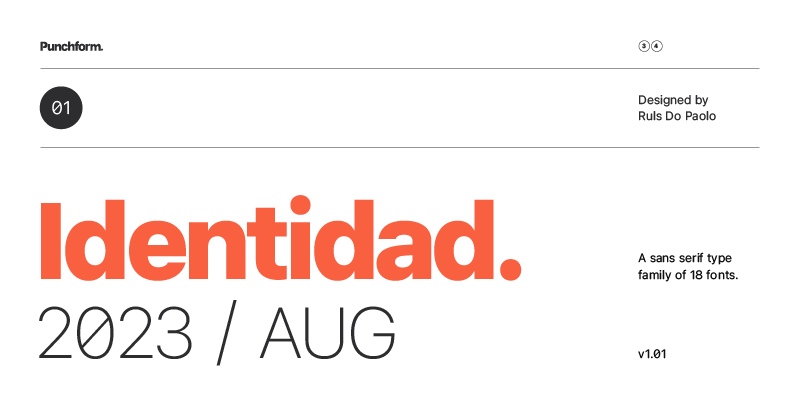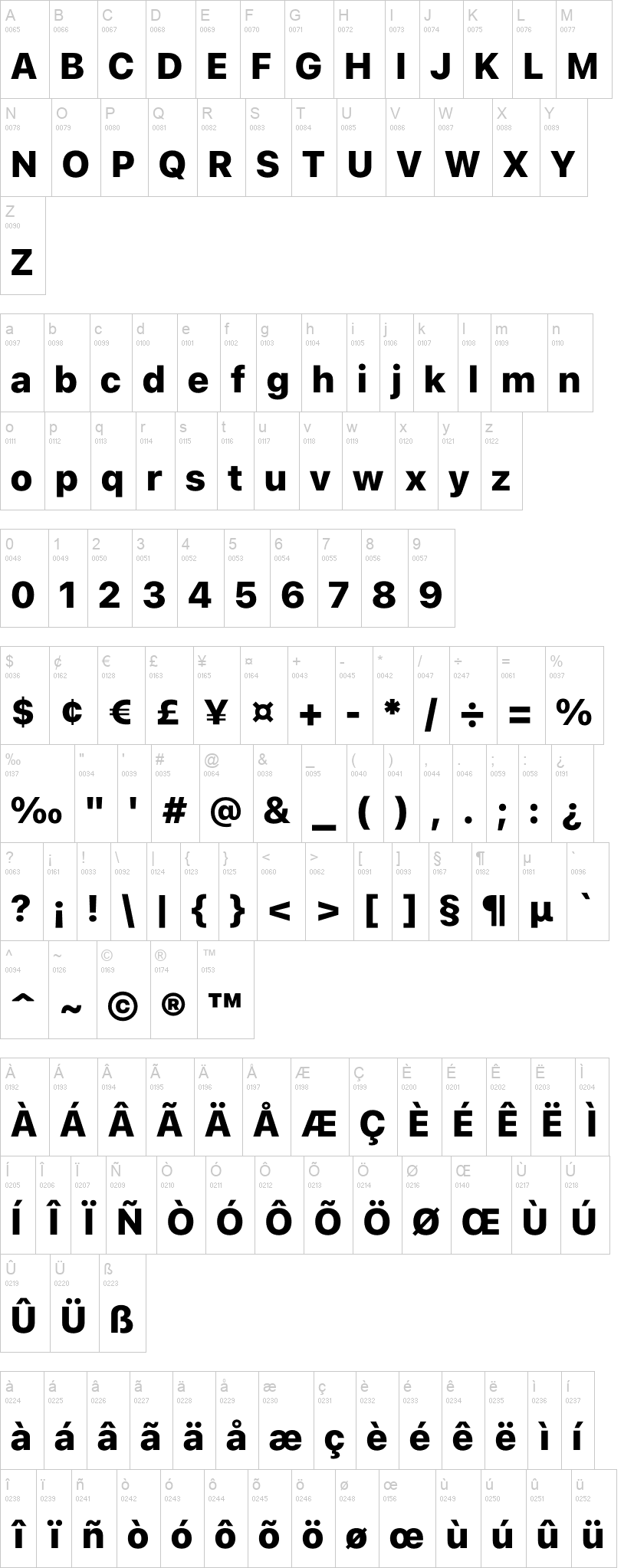
Identidad is a sans-serif type family designed to offer support for most languages in the Latin script.
Identidad has nine weights, each with corresponding italics, 710 glyphs, and 19 OpenType features (aalt, calt, case, ccmp, dlig, dnom, frac, liga, locl, numr, ordn, pnum, sinf, ss01, ss02, subs, sups, tnum, zero).
Identidad supports 377 languages and covers 3 Unicode blocks (Basic Latin, Latin-1 Supplement, Latin Extended-A).